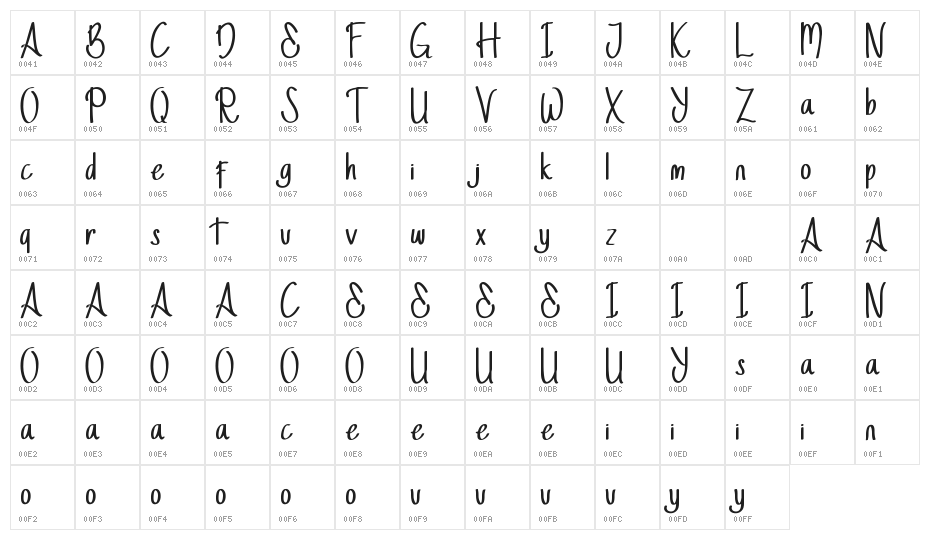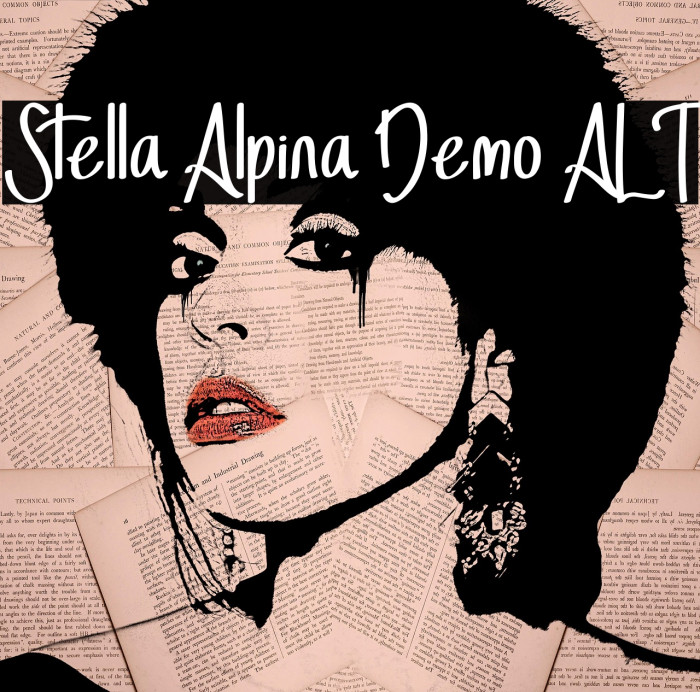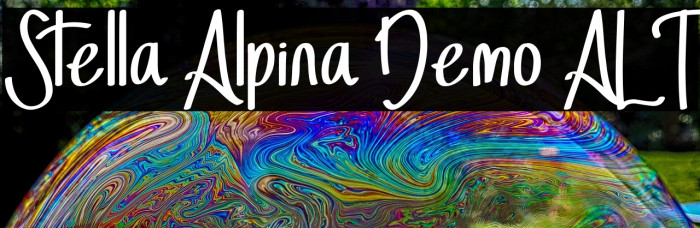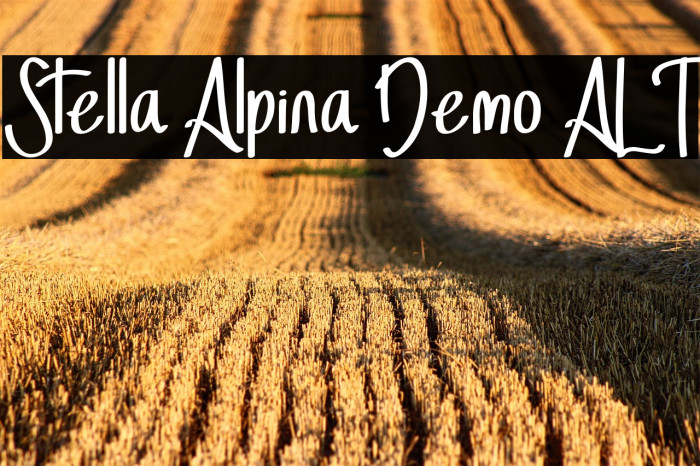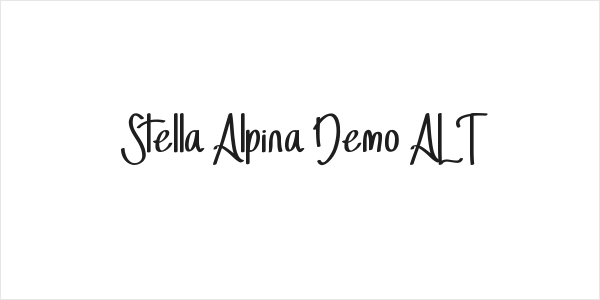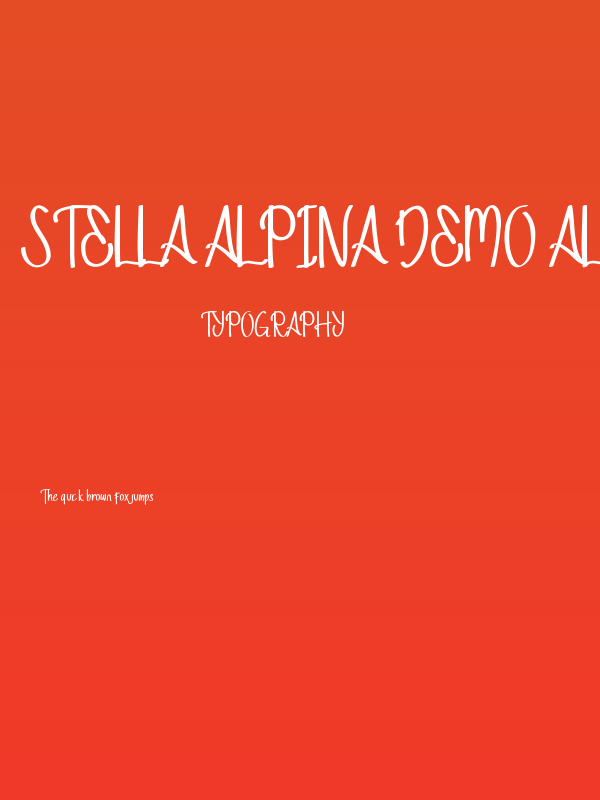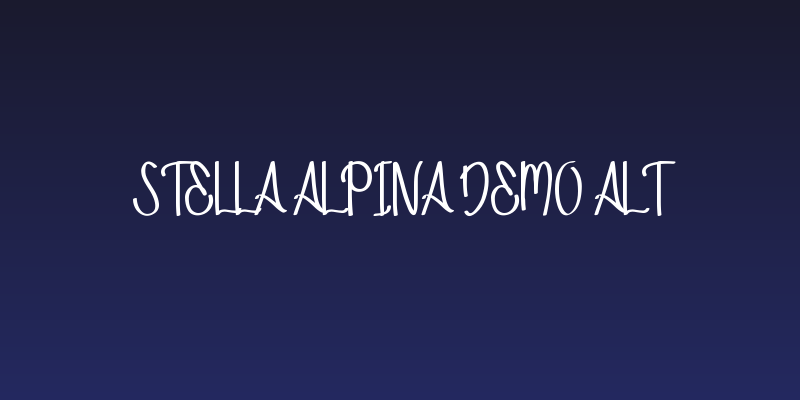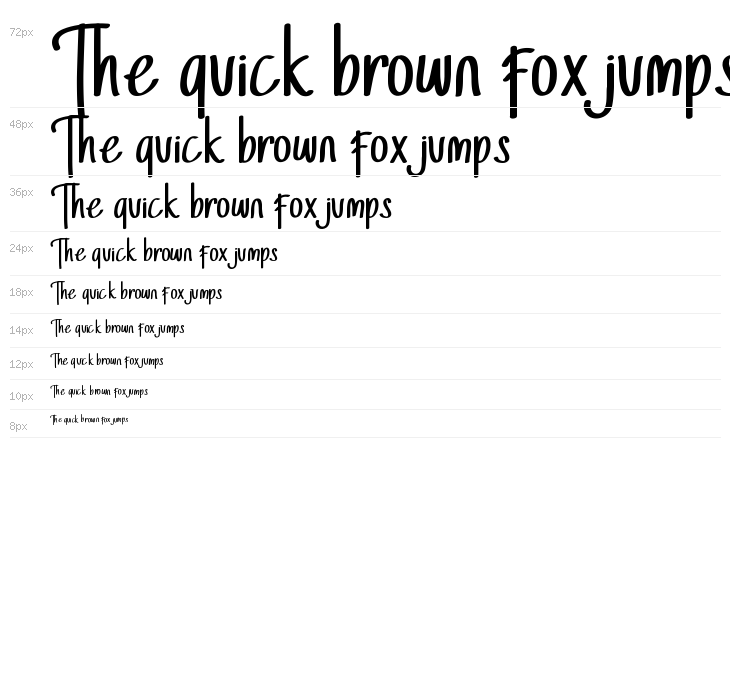
Stella Alpina Demo ALT Font
Stella Alpina Demo ALT Description
This font features a playful and whimsical handwritten style, characterized by its flowing and irregular strokes. The letters have a casual, artistic flair, with varying heights and widths that give it a dynamic and lively appearance. The uppercase and lowercase letters maintain a consistent style, with some letters featuring unique loops and curves that add to its charm. The font's overall look is informal and friendly, making it suitable for creative and expressive projects. The characters are slightly condensed, with moderate spacing that ensures readability while maintaining its artistic appeal.
Use CaseLogos, Headlines, Creative projects
Proposed ProjectsIdeal for greeting cards, invitations, children's books, and creative branding.